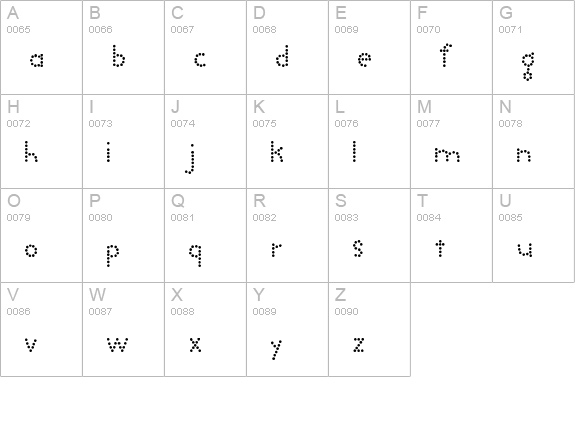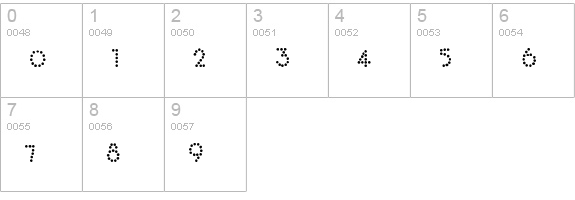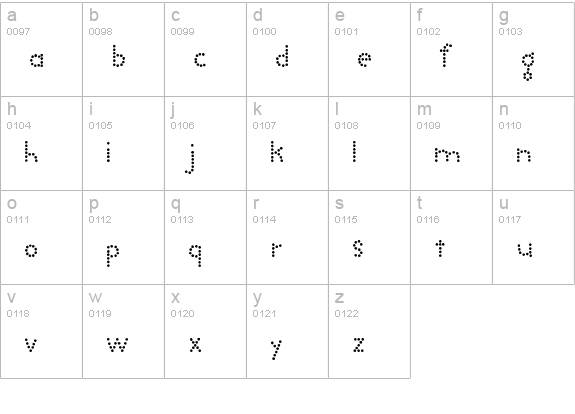
Tootlebug Font Details
Introducing Tootlebug font, a whimsical and playful typeface that will add a touch of fun and charm to any design project. With its unique combination of curvy lines and cute details, Tootlebug is perfect for creating eye-catching headlines, logos, posters, and more. This font exudes a sense of joy and lightheartedness, making it ideal for children's books, birthday invitations, and other projects that require a cheerful aesthetic. Tootlebug's versatility allows it to be used in a variety of contexts, from digital designs to printed materials. But what makes Tootlebug truly special is that it is absolutely free! That's right, this delightful font is freely available to download at FontsMarket.com, the go-to destination for quality fonts. Now you can enjoy the beauty and charm of Tootlebug without any cost or hassle. Whether you're a professional designer or a casual DIY enthusiast, Tootlebug font is a must-have addition to your font collection. Its smooth curves and artistic details will bring your projects to life, capturing the attention and imagination of your audience. So why wait? Download Tootlebug font today and let your creativity soar. With its free availability and endless design possibilities, Tootlebug is sure to become your go-to font for all things fun and fabulous.